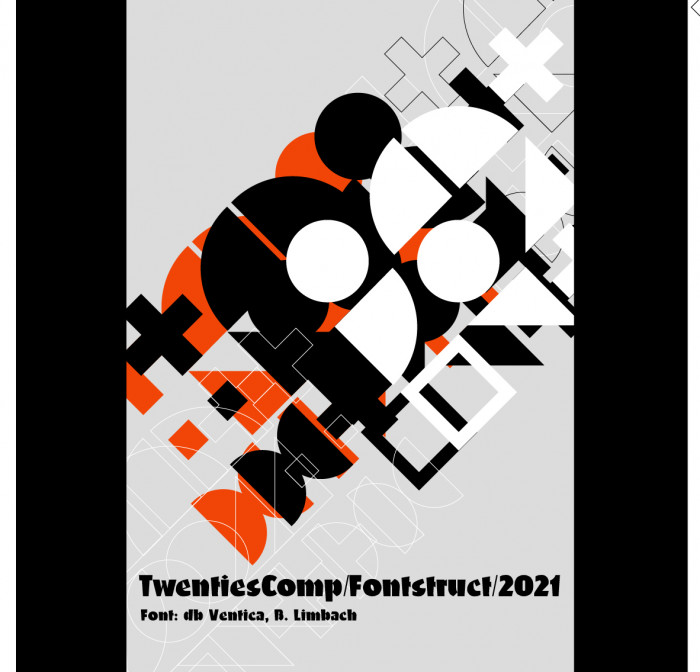
The tapering on the letters is quite well executed and turned out beautifully
there are still a few days left but i also feel hardly anything better can appear in this 1920s pastime. so nice!
Beautiful work! However, I think that _*#%&+-<=> do not match the style that well …
Fabelhaft!
Beautiful glyphs.